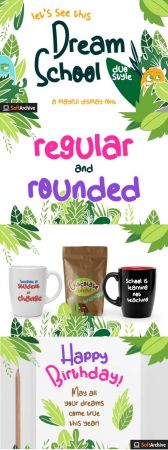
Dream School is a casual and cute display font. Clean and a little bit quirky, this font is the perfect fit for all of your logos, branding, social media, and crafty DIY projects.